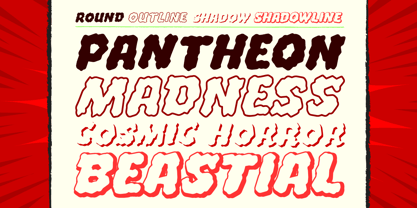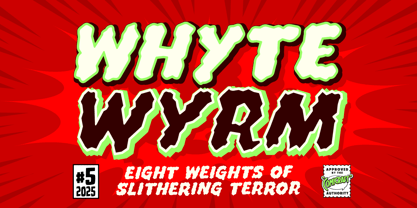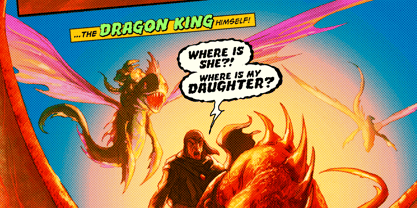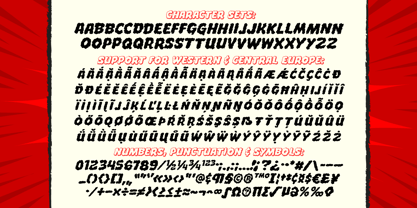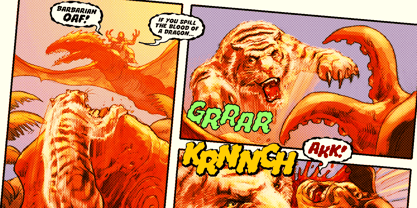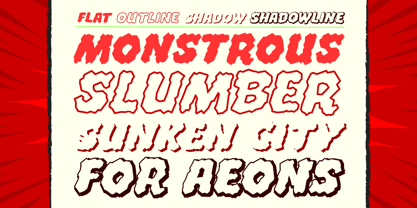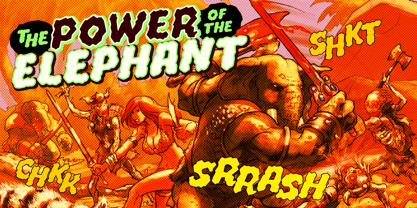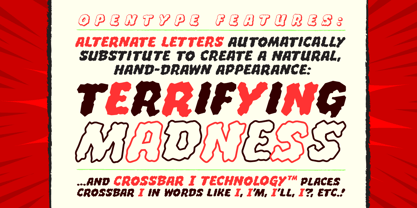
Whyte Wyrm
by Comicraft
The Whyte Wyrm Font Family was designed by Richard Starkings, John Roshell and published by Comicraft. Whyte Wyrm contains 8 styles and family package options. More about this family
This great, old, monstrous, worn and bloated font, has slumbered in the sunken cities of Calligraphica for aeons! It is a set of characters belonging to an ancient pantheon of alphabets that have influenced comic book lettering since the late 1900s, leading to cover copy that has inspired cults and madness! WhyteWorm is an amoral, indifferent font of cosmic horror, whose awakening may bring chaos and a new age of Typographical Terror and Beastly Burst Balloons! This lovingly crafted font comes with two families (Flat & Round) each with four versions, for a total of eight slithering weights. All include automatic alternates for a natural, hand-drawn appearance.
Designers: Richard Starkings, John Roshell
Foundry: Comicraft